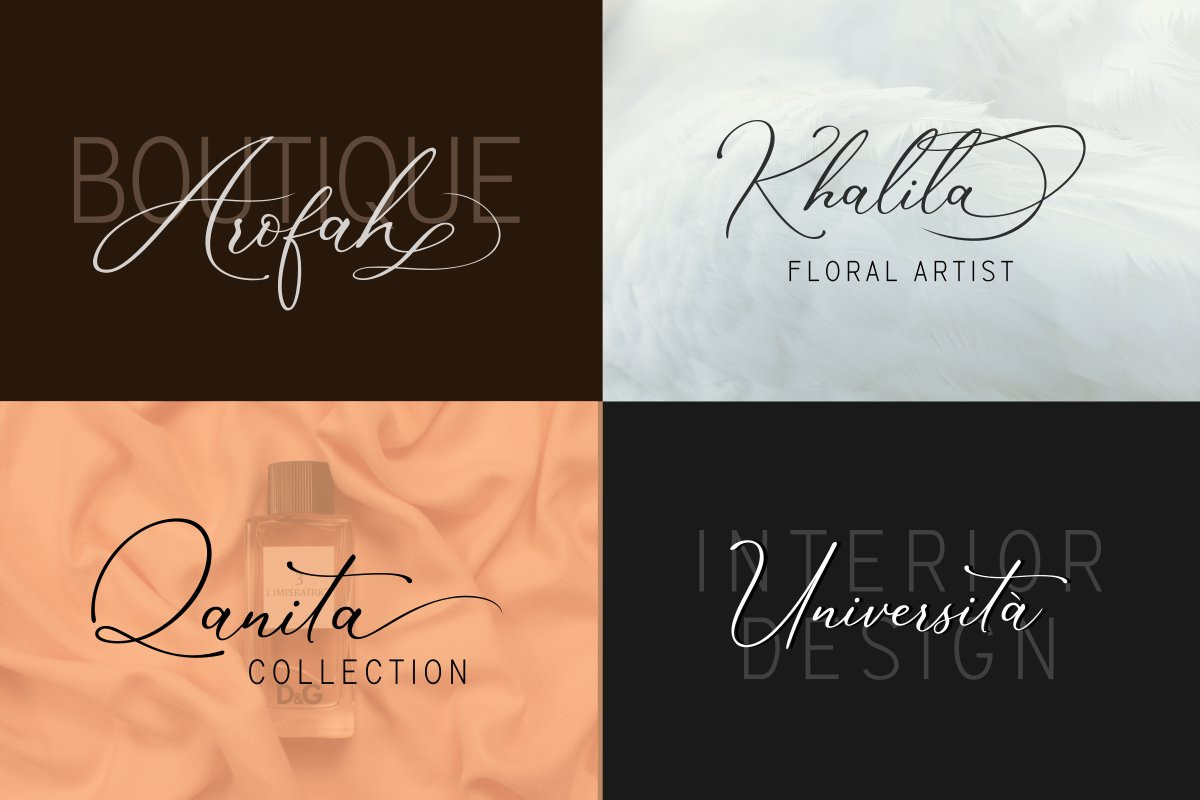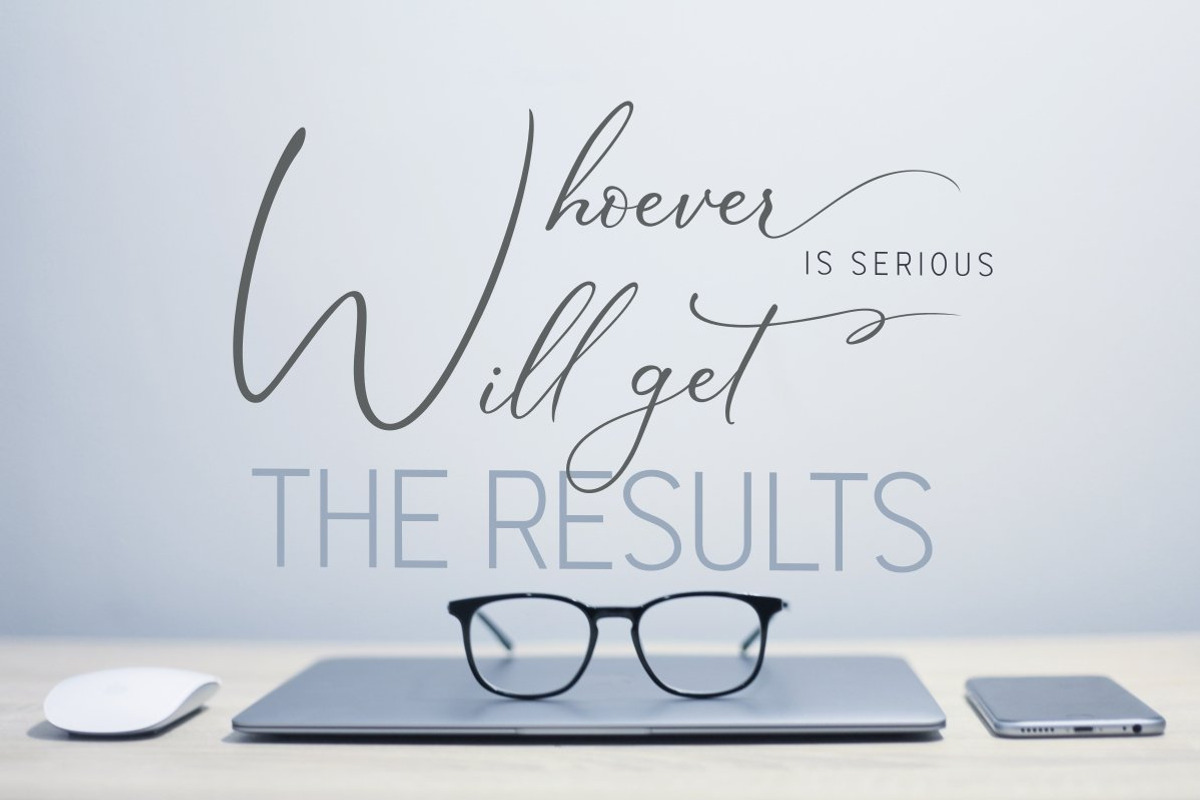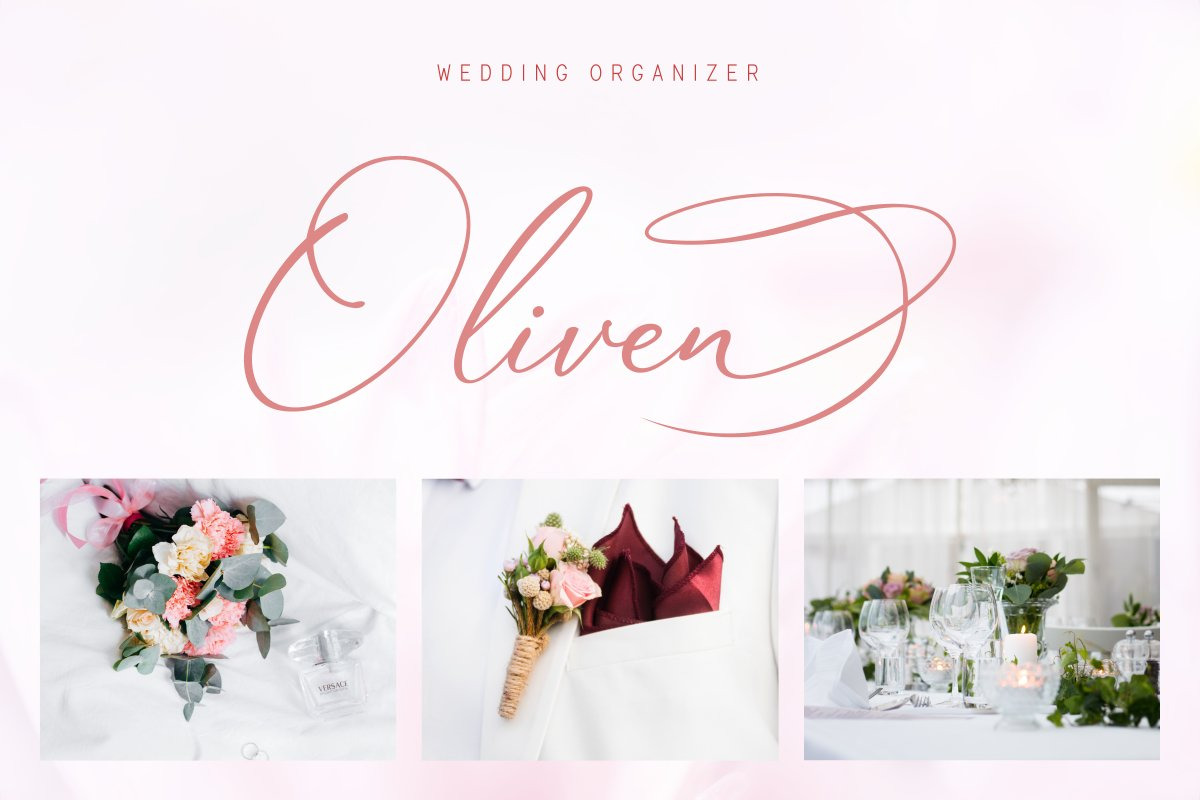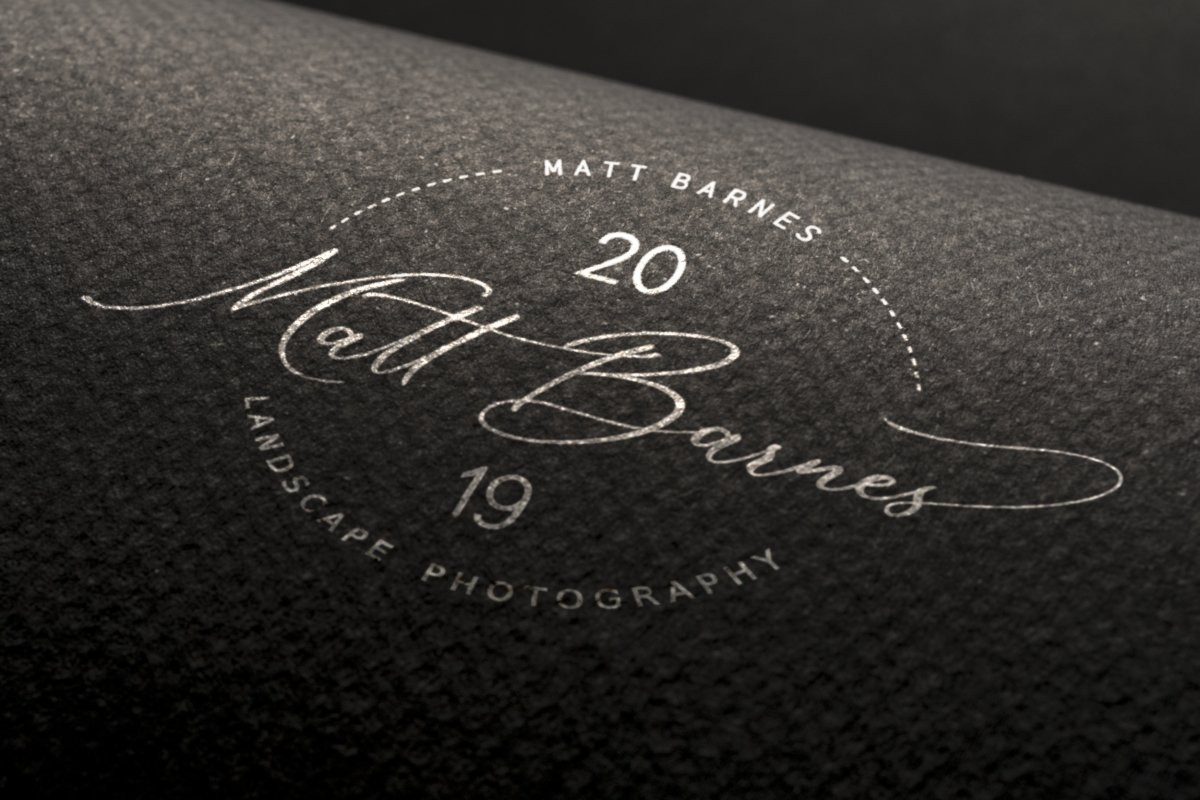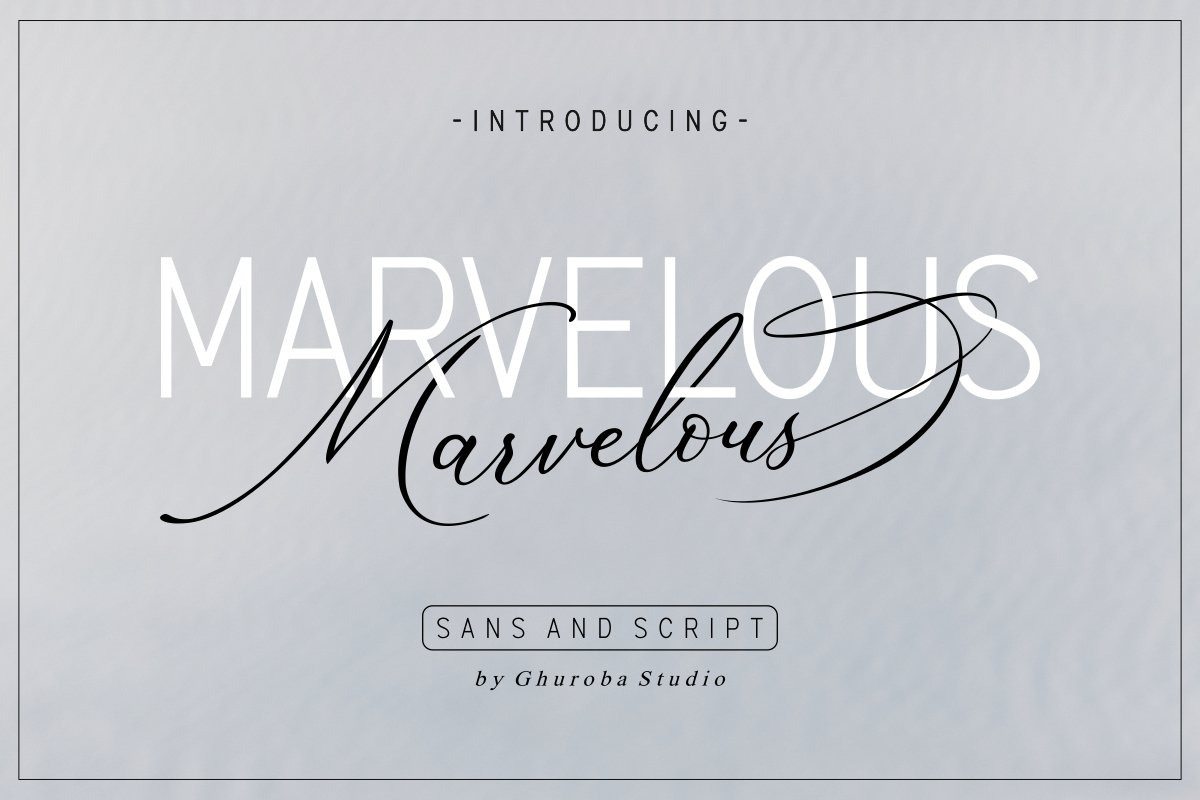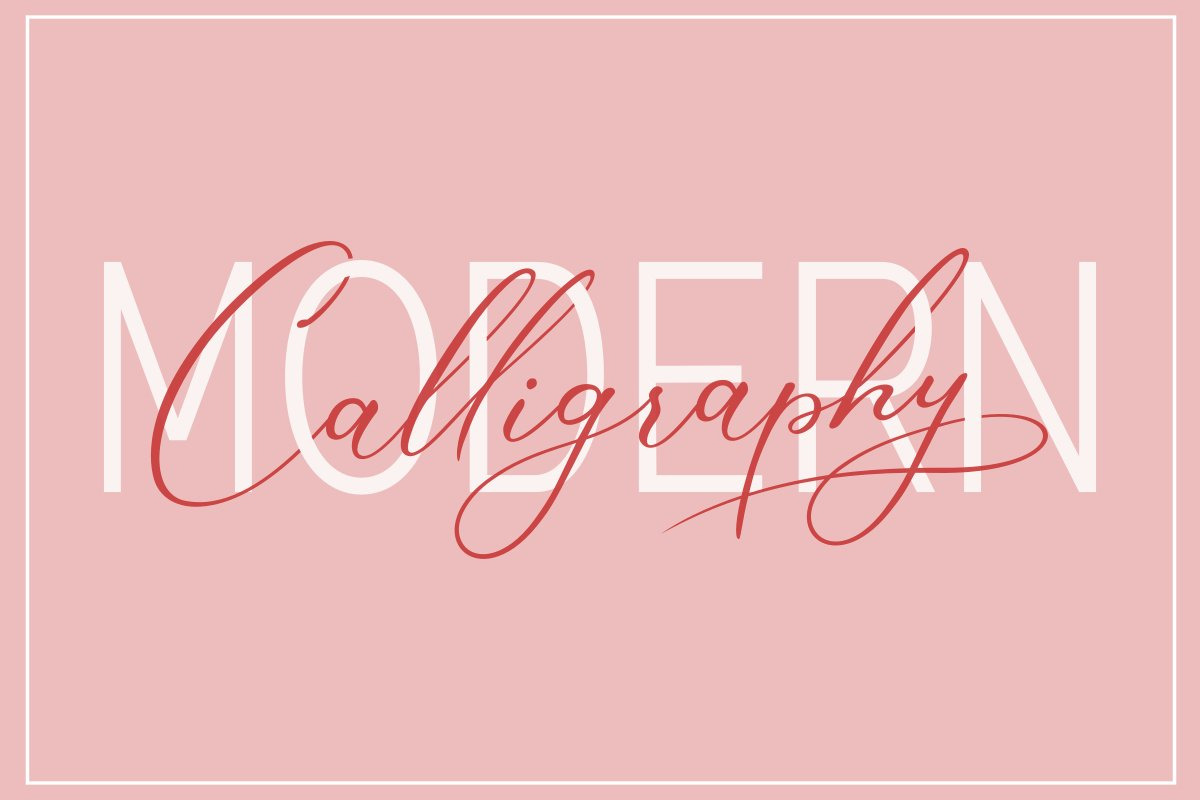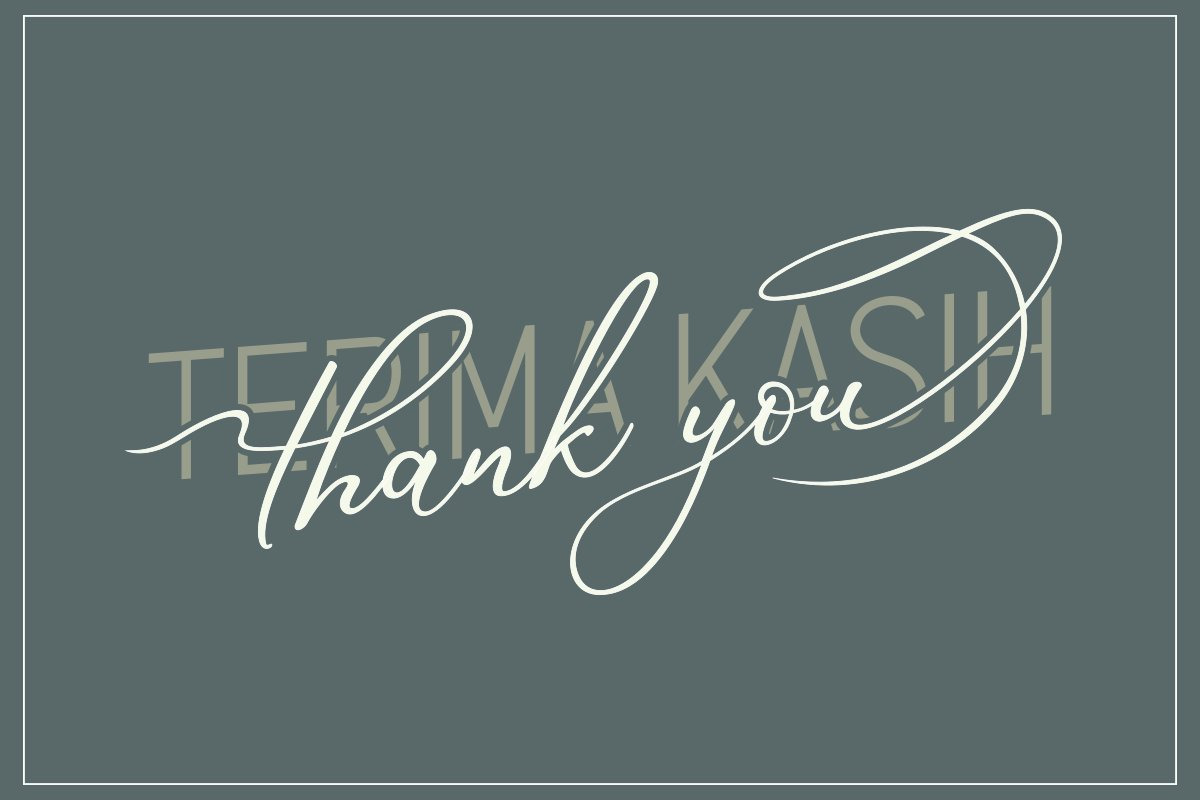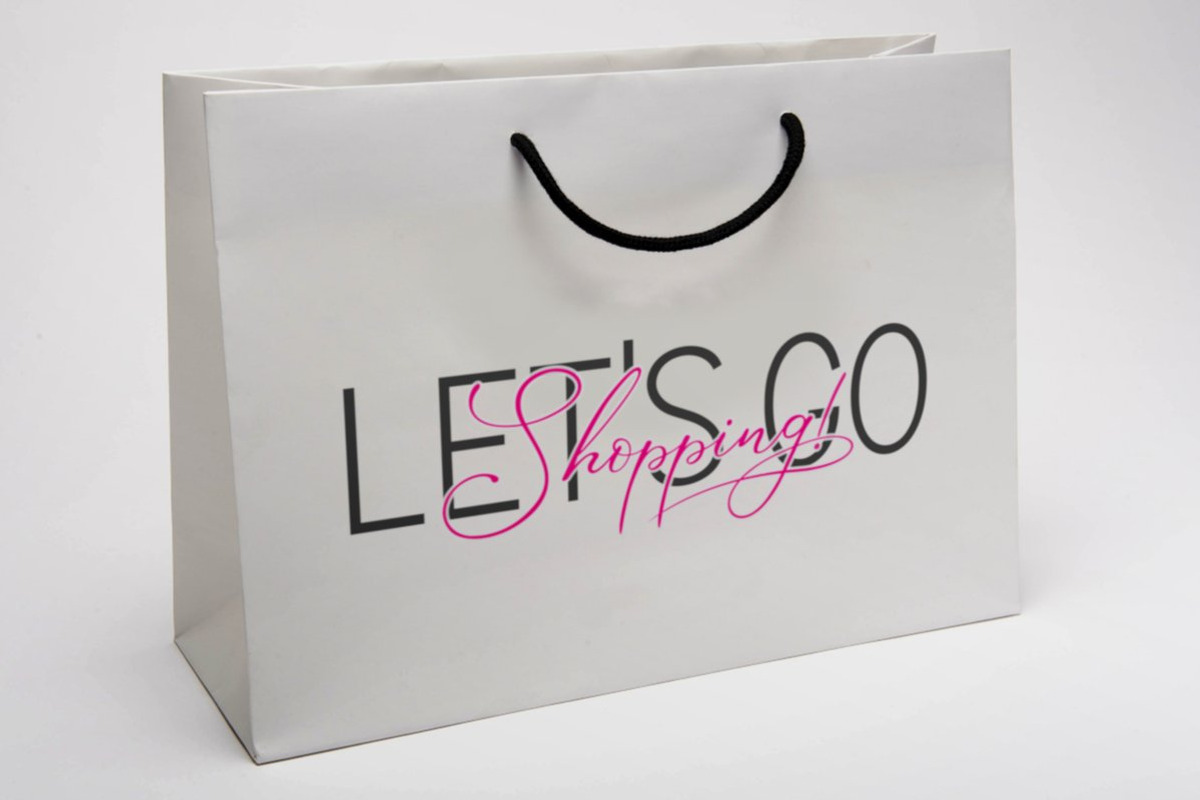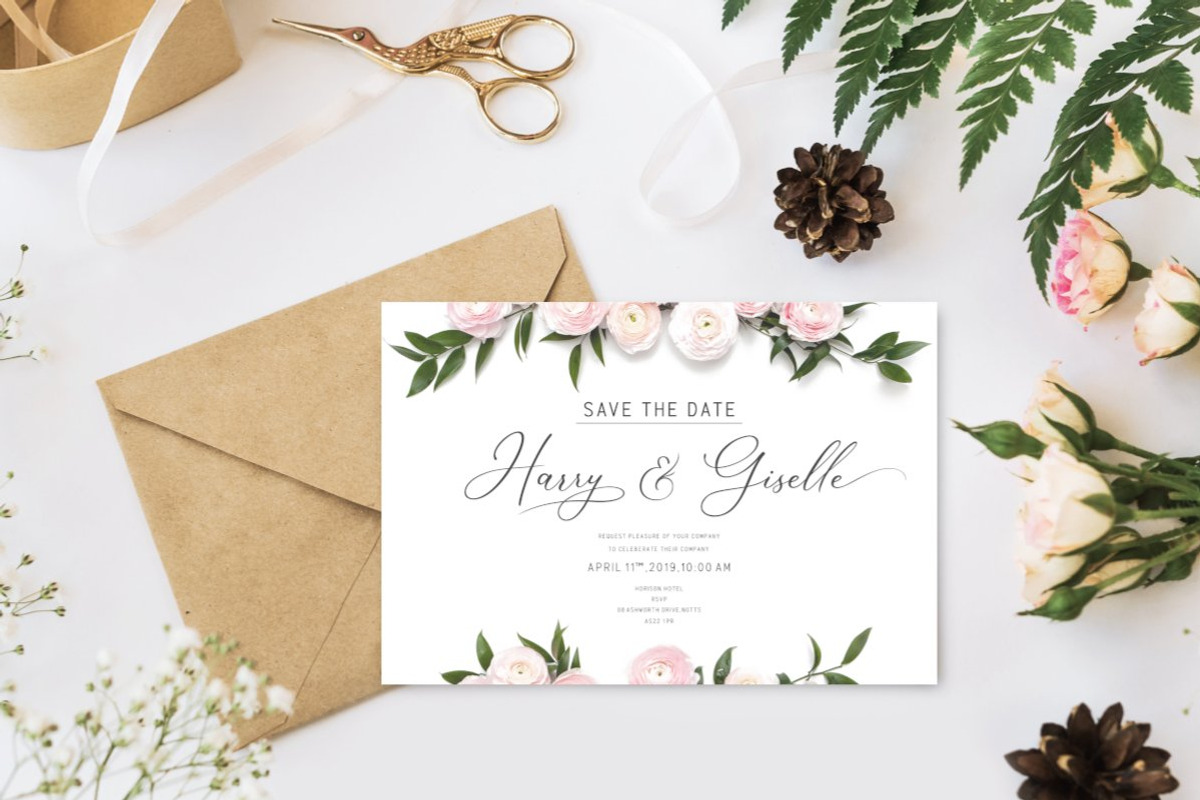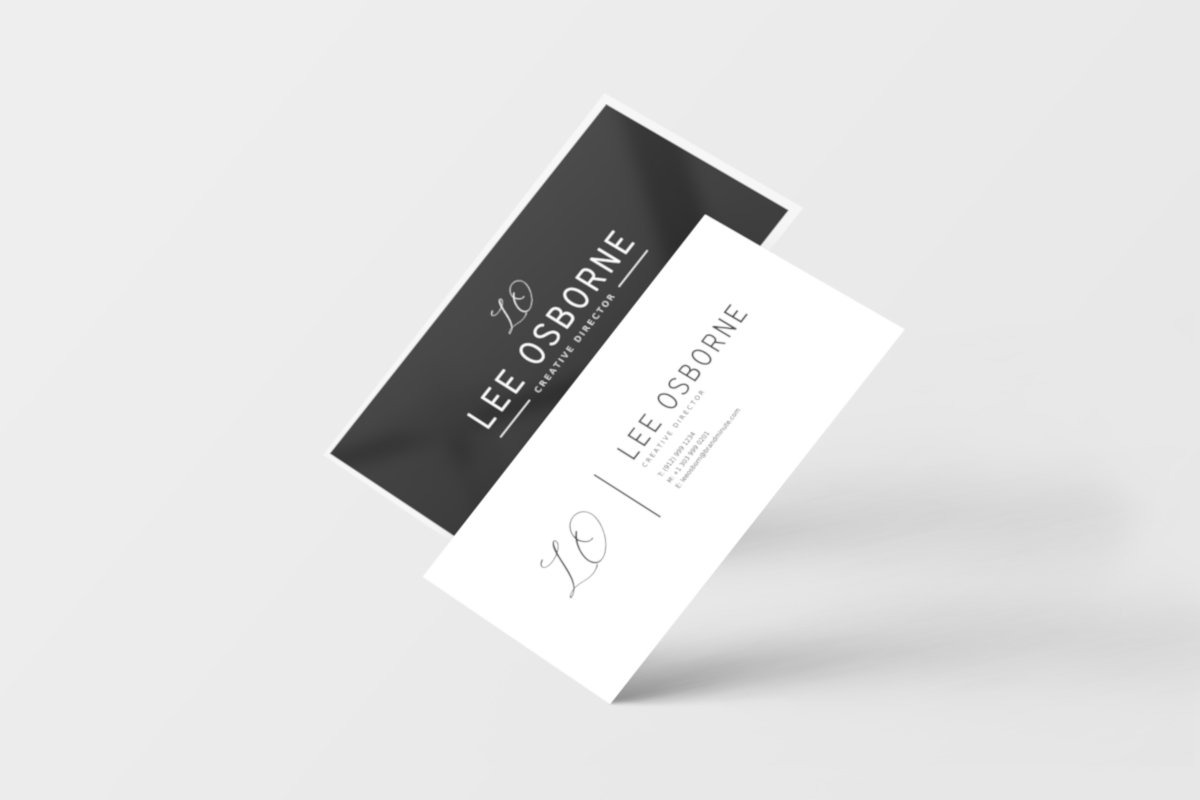
Marvelous | Modern Calligraphy Font
The Marvelous is a stunning pair of sans serif and modern calligraphy fonts designed to complement each other with elegance and a contemporary style. It’s perfect for branding, invitations, business cards, weddings, logos, quotes, product packaging, and more.
Features Included:
- Number & Punctuation
- Lowercase Ending Swashes
- Swashes Alternates
- Multilanguage Support
This font is PUA encoded which means you can easily access all of the cute glyphs and alternates! It also features a wealth of special features including alternate glyphs and ligatures.